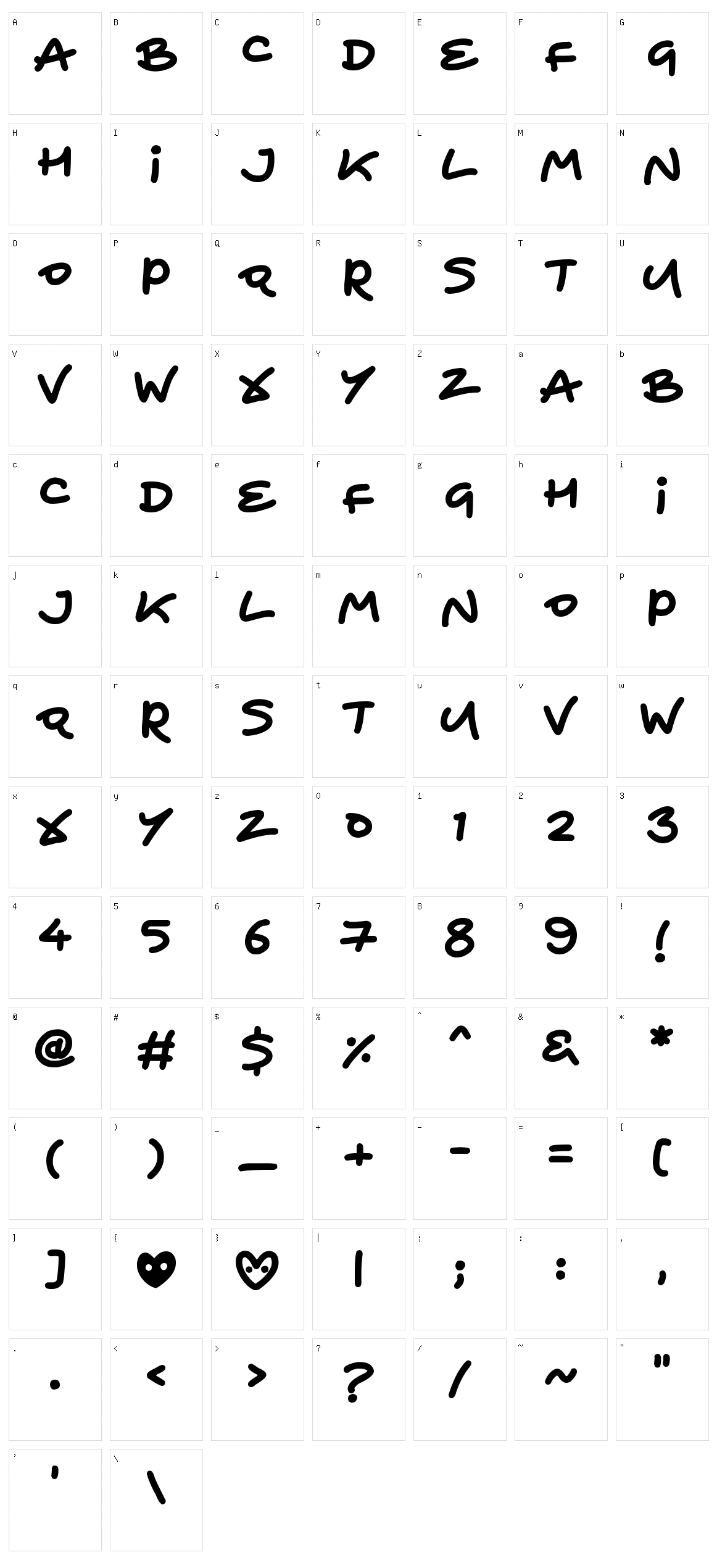
The free font Heart To Heart is carefully designed by Hawtpixel, showcasing a thoughtful balance of creativity and usability and falls under the Script font style. When you download the ZIP file, it contains only 76.87 KB of font files, making it lightweight and quick to download. Please review the license details below to understand permitted usage and distribution rights. If license information is not available, we recommend using this font for personal projects only or contacting the author directly for commercial usage permissions.